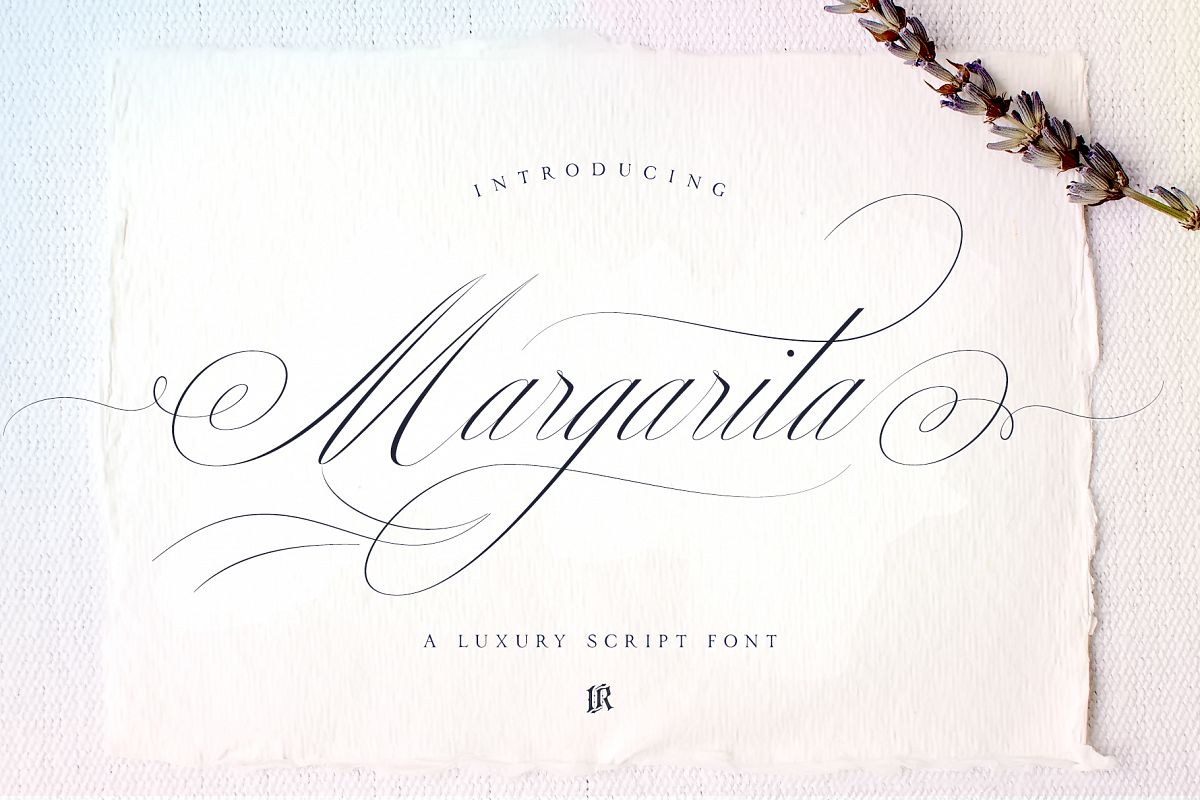
Margarita Font
Margarita-Script
Margarita Script Font is formal script font with multilingual support. Is ideal for wedding invitations, magazines, social media, restaurant menus, greeting cards, birthday invitations, headers and many more.This brush font comes with a complete set of lowercase and uppercase characters, a large range of punctuation ligatures, numerals and and multilingual support.Download folder includes
• Margarita Script Font is a set of 666 glyphs, Upper and Lowercase characters with ligatures, numerals, lot of punctuation glyphs and up to 20 alternates.